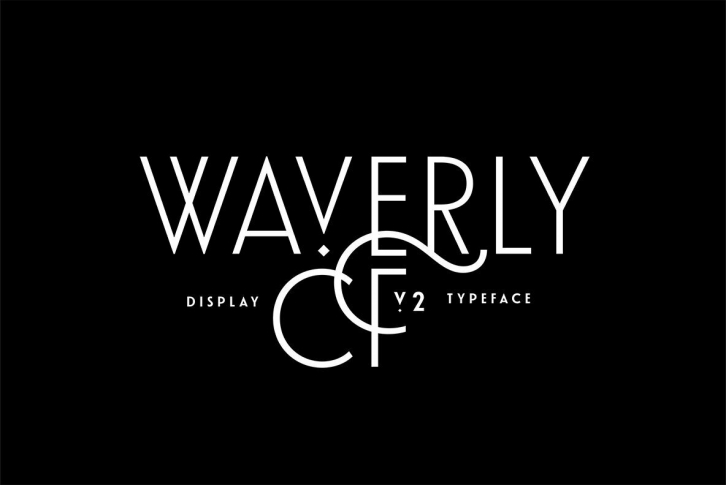
Waverly CF combines the tone and flow of art deco with updated, clean letterforms and a modernized construction. Variation in letter width creates a pleasant rhythm perfect for artwork and logos. Waverly CF offers wide language support across Latin and Cyrillic glyphs, and includes a host of swashes and alternate letterforms.